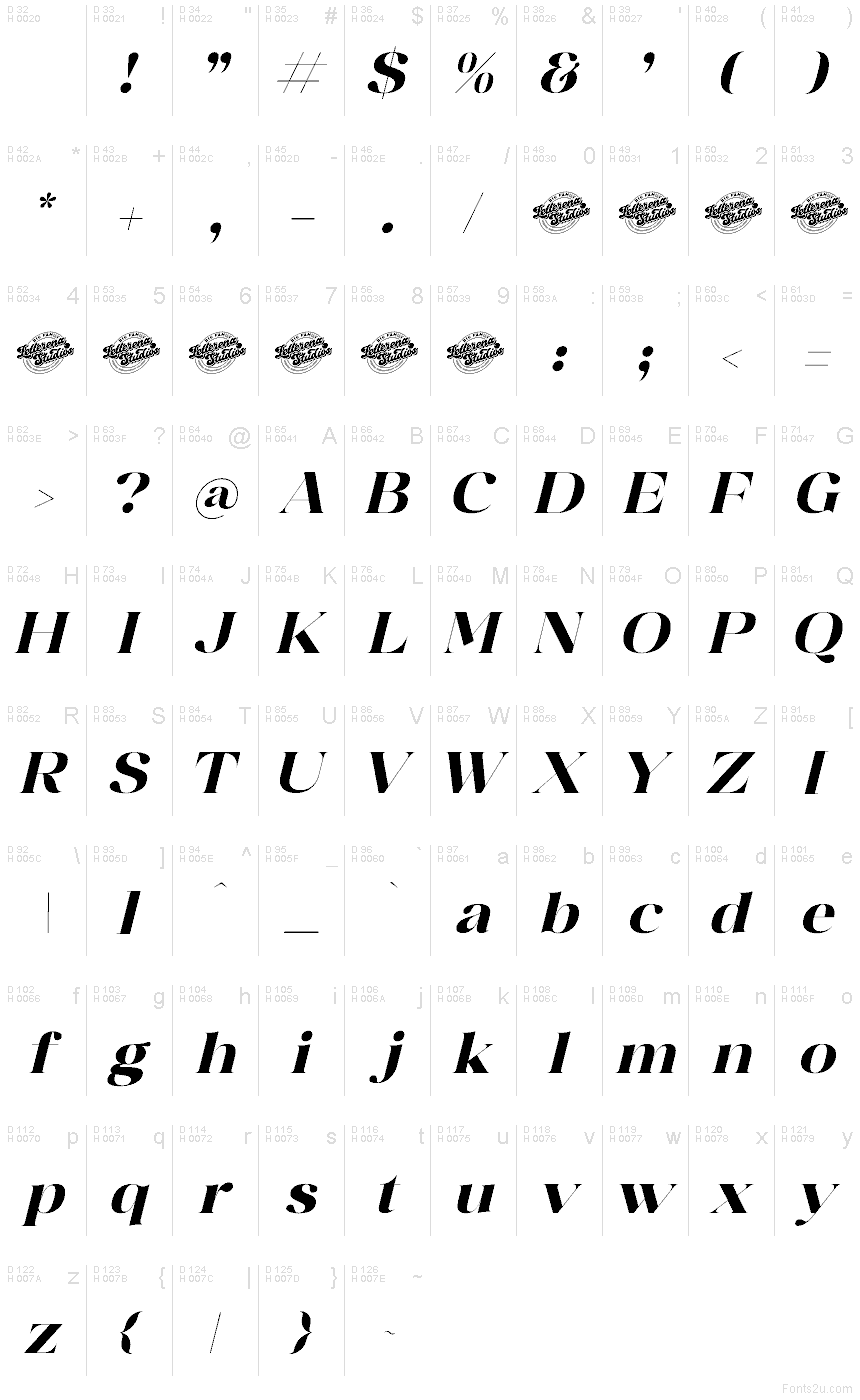
Megisha DEMO VERSION Italic
Megisha Italic font by Letterena Studios is a free serif typeface with a bold, swept-back posture that feels like a signature done with a thick, inky brush. The letters lean with confidence, combining broad, velvety strokes with razor-sharp edges that catch the eye instantly. There’s a luxurious sense of motion in every word, making the Megisha family feel tailored, dramatic, and unapologetically stylish.
Using Megisha Italic, headlines and logos gain a cinematic flair that works beautifully for fashion branding, perfume packaging, editorial covers, wedding stationery, and upscale social media graphics. This free font shines when set large, letting those sculpted curves and heavy contrasts do the talking; pair it with a clean, neutral sans-serif for body copy to keep the overall layout polished and modern.